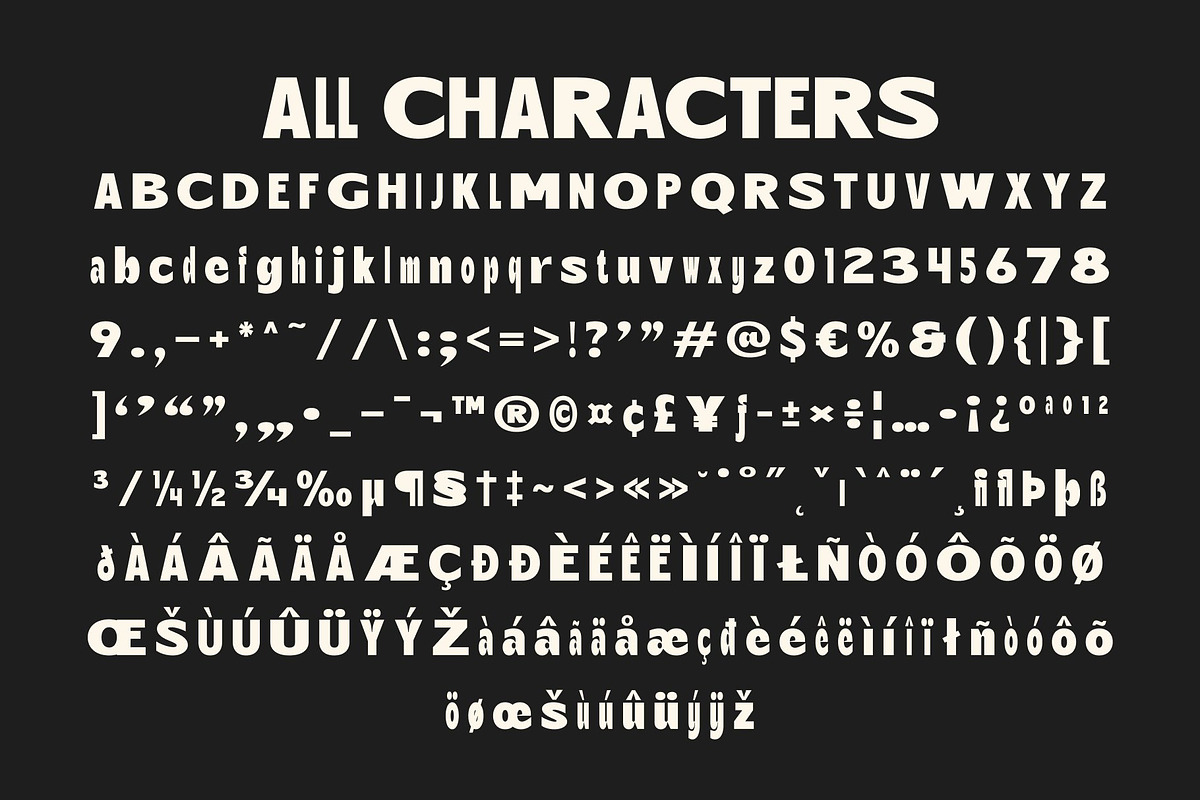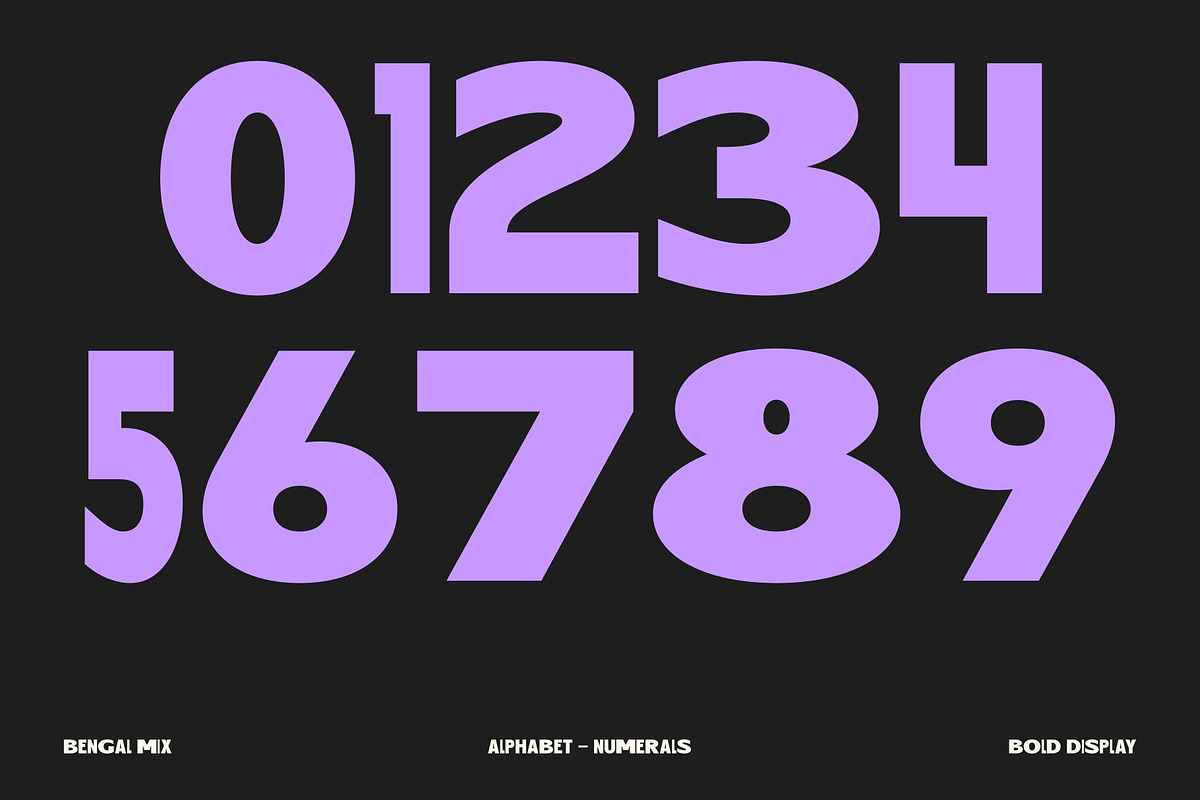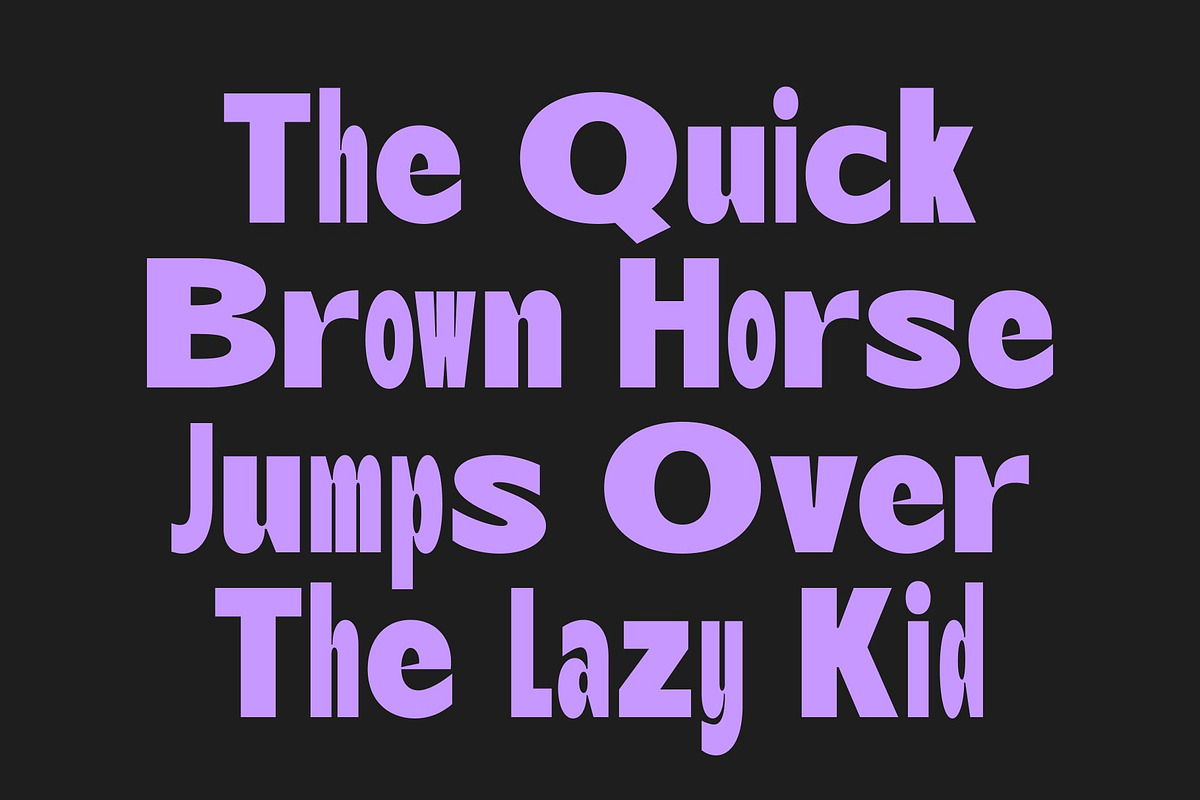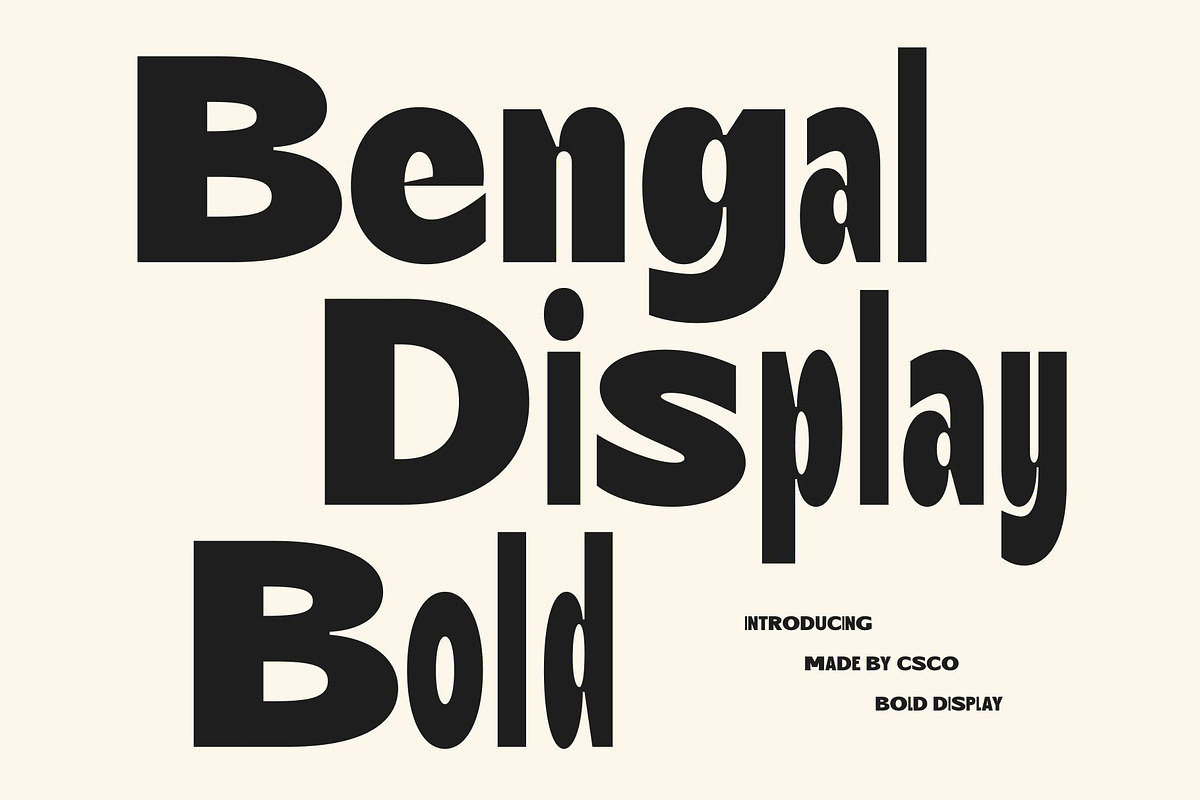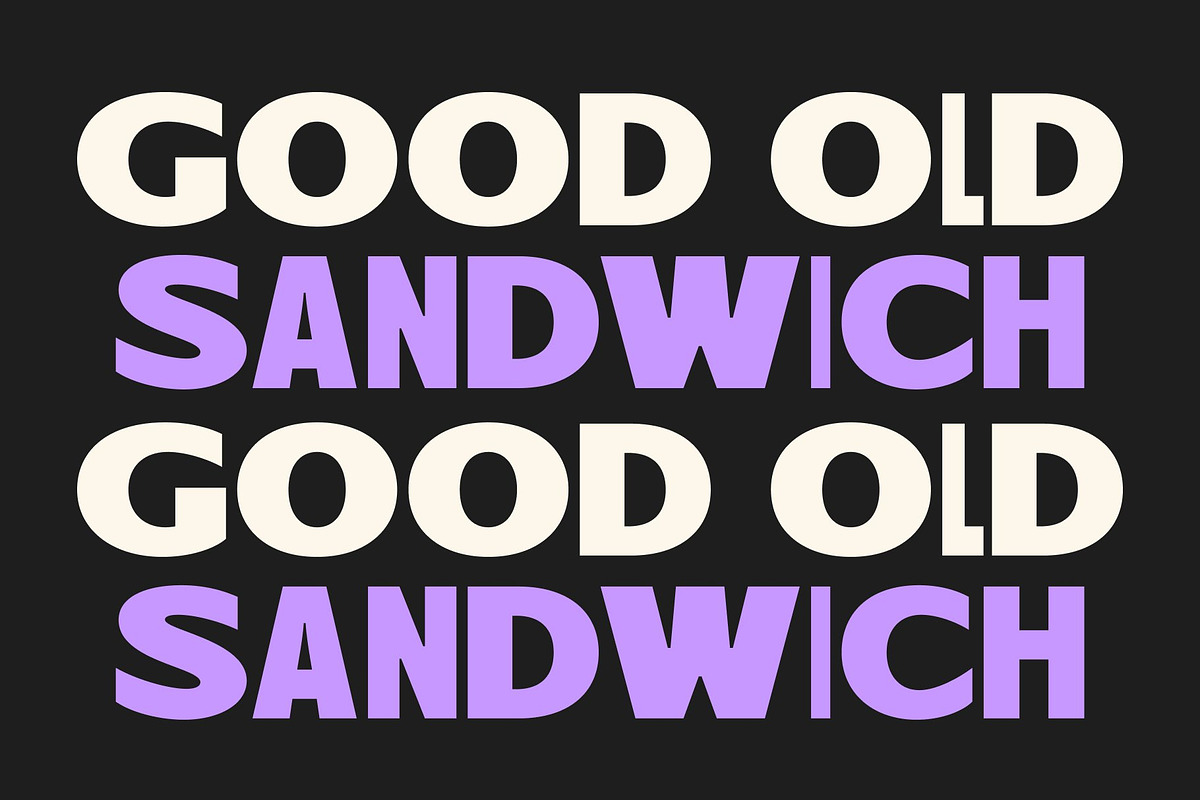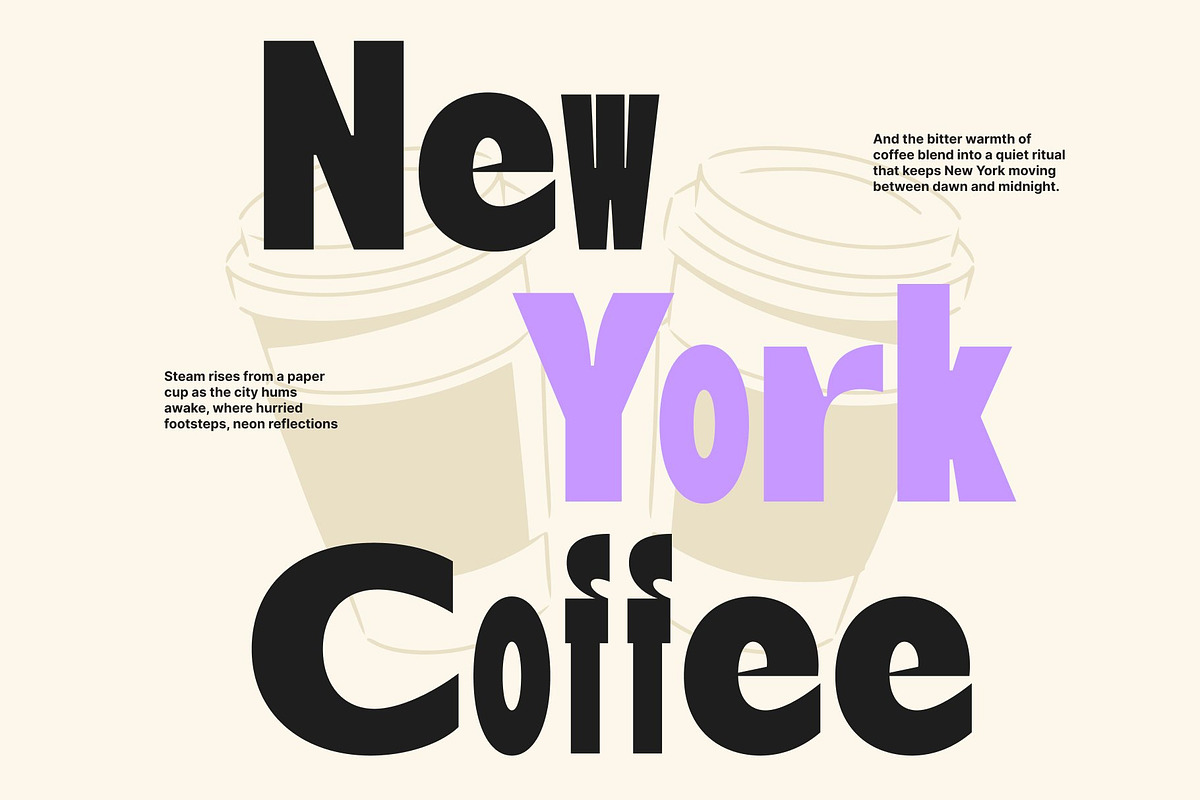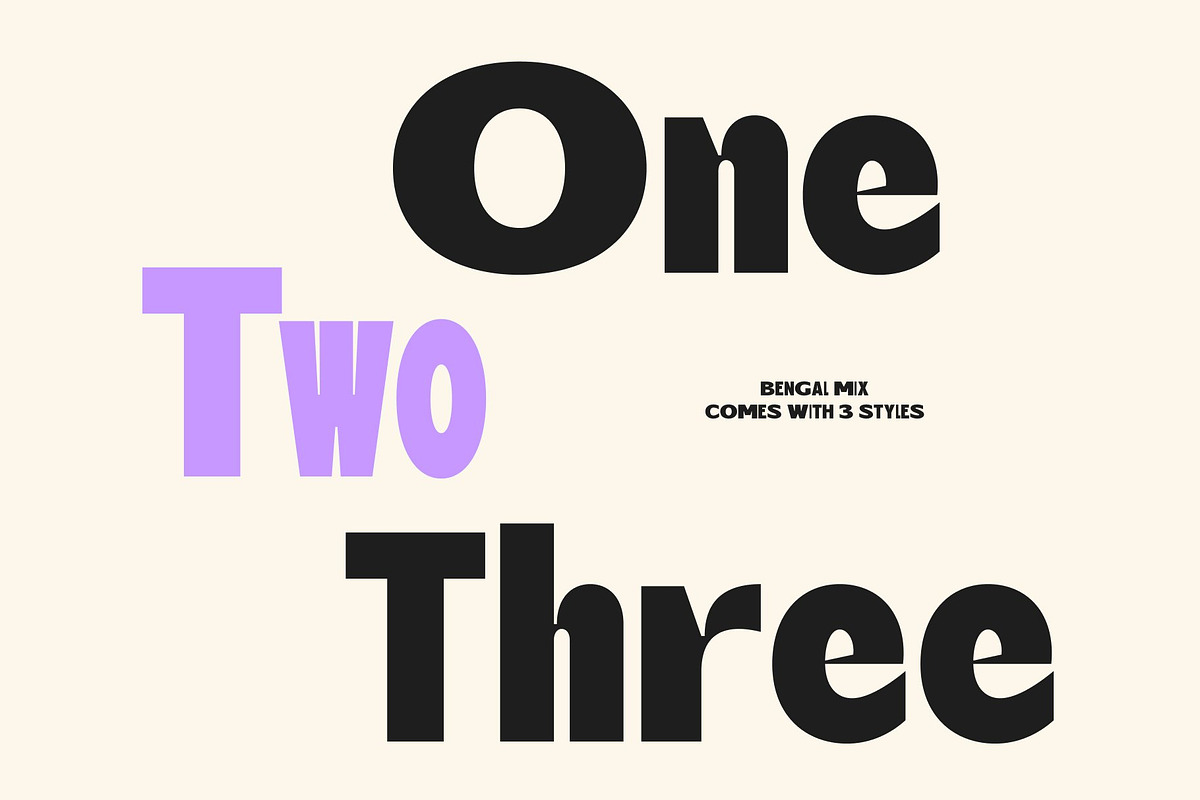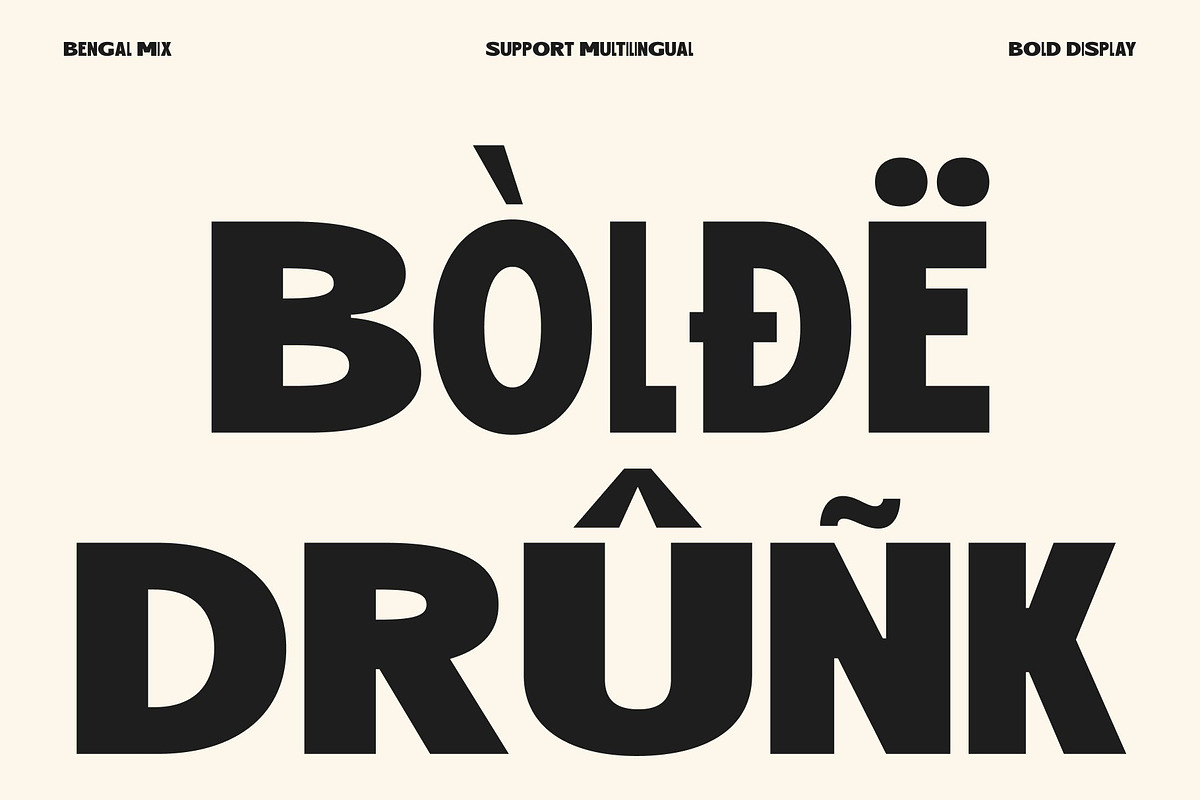
Bengal Mix
Retro Bold Sans Serif: A Vibrant Revival of Vintage Energy
Retro Bold Sans with Mixed Weight Style This is a bold sans serif font infused with nostalgic charm and a modern mixed-weight twist. Inspired by retro typography, this font captures the lively spirit of vintage design while introducing a fresh contemporary rhythm. Its strong structure and playful personality make every word feel expressive, eye-catching, and full of character.
A Distinctive Blend of Bold and Regular Characters What makes Bengal Mix truly unique is its creative mix of bold and regular letterforms. This thoughtful combination produces an energetic visual contrast that feels dynamic and engaging. The variation in weight adds movement and personality, allowing text to stand out with a vibrant retro attitude.
Bold Retro Personality with Modern Freshness This font embraces the essence of vintage aesthetics through solid shapes, confident strokes, and timeless proportions. At the same time, its clean construction keeps the font feeling modern and relevant. This balance allows designers to achieve nostalgic visuals without sacrificing clarity or versatility.
Perfect for Posters, Branding, and Nostalgic Visuals From retro posters and packaging to logos and branding, this font adapts beautifully across creative projects. Its strong presence captures attention instantly, while its readability ensures clear communication in both print and digital formats. Whether you are crafting throwback advertising, vintage-inspired branding, or decorative display layouts, Bengal Mix brings warmth, boldness, and timeless retro flair to every design.